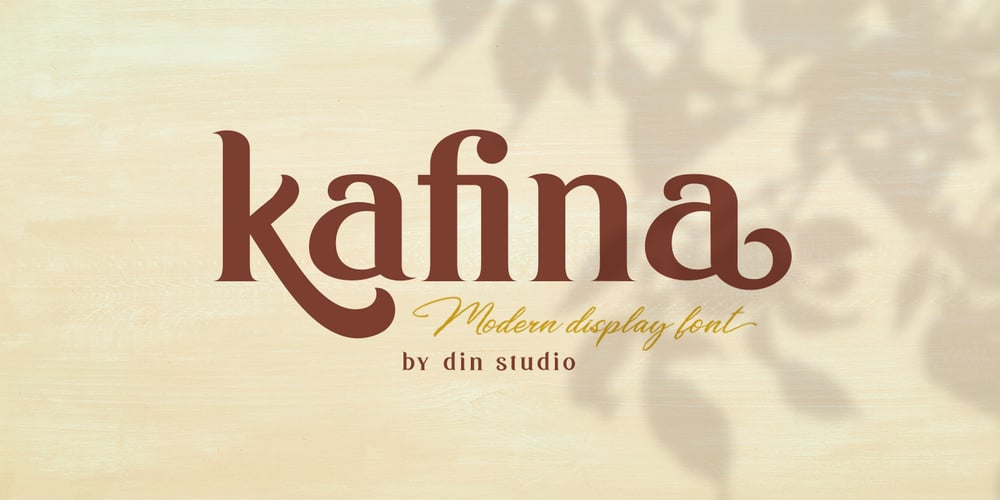
Kafina
Kafina font
Kafina Font Family was designed by Donis Miftahudin and published by Din Studio. Kafina contains 1 styles and family package options. Kafina Serif Font, Kafina is a beautiful display font, designed with a modern and bold style. It’s suitable for branding, logo, and many other designs.Features: Accents (Multilingual Characters) 12 Ligatures 114 Alternates Numerals and Punctuation (OpenType Standard)